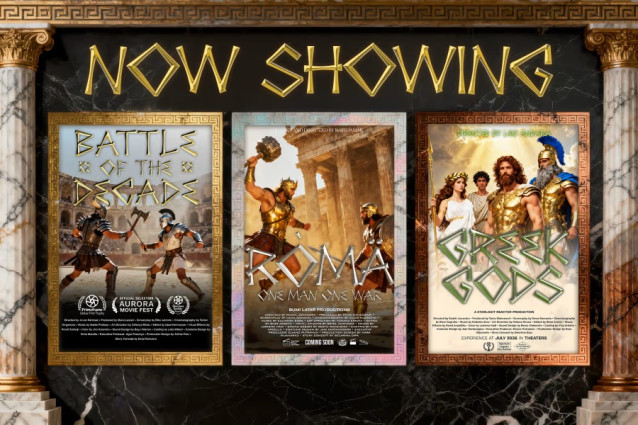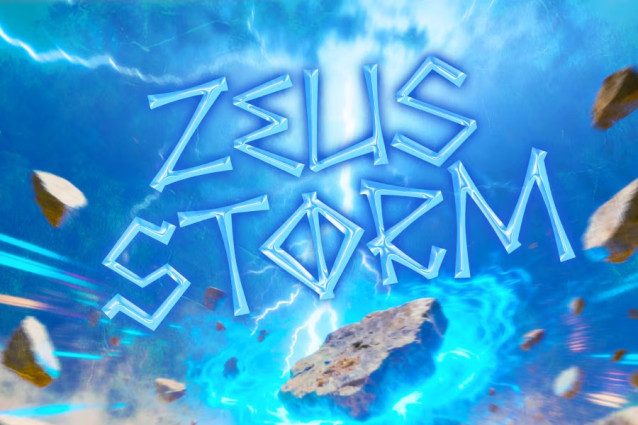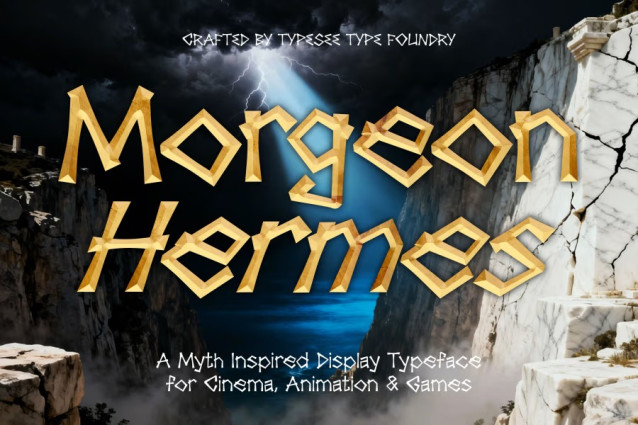
Morgeon Hermes Font
Morgeon Hermes Font is a myth inspired display typeface crafted with chiseled stone aesthetics, evoking the power, mystery, and grandeur of ancient legends. Perfect for cinematic titles, animation, fantasy worlds, and epic game branding.
Morgeon Hermes is a striking mythological display font designed to capture the timeless strength and mystique of ancient civilizations. Each letter is sculpted with sharp, chiseled edges reminiscent of carved stone monuments, temple engravings, and classical Greek artistry. This bold stylistic approach gives the typeface an authentic legendary feel powerful, ceremonial, and visually commanding. Created for cinematic compositions, animated storytelling, fantasy realms, and immersive gaming experiences, Morgeon Hermes brings dramatic atmosphere and ancient-world energy to any project. Its unique geometric cuts and textured form create a sense of motion and depth, making titles feel heroic, divine, and rooted in mythic heritage.
Whether displayed on epic posters, promotional visuals, story-driven interfaces, or animated sequences, Morgeon Hermes stands out as a typeface that communicates mythology, adventure, and timeless grandeur. It is ideal for creators seeking a font that merges storytelling with monumental style.